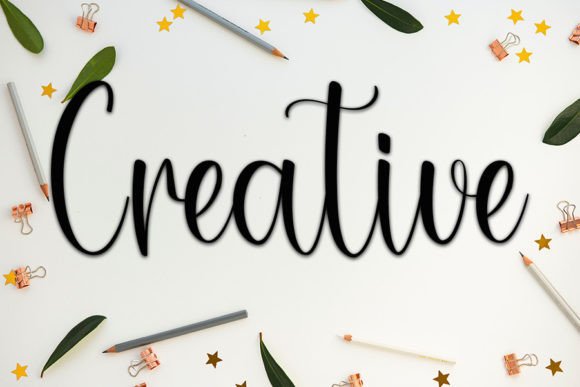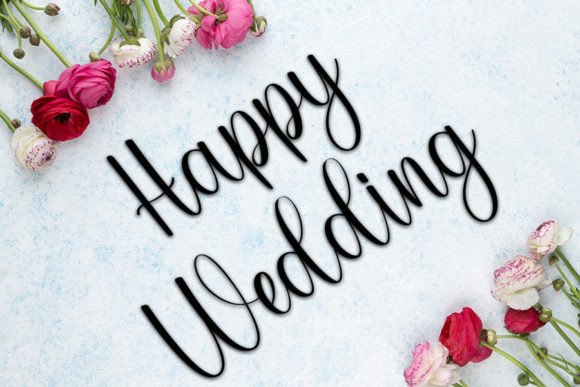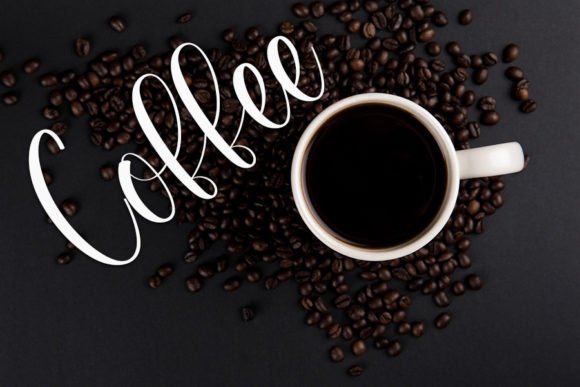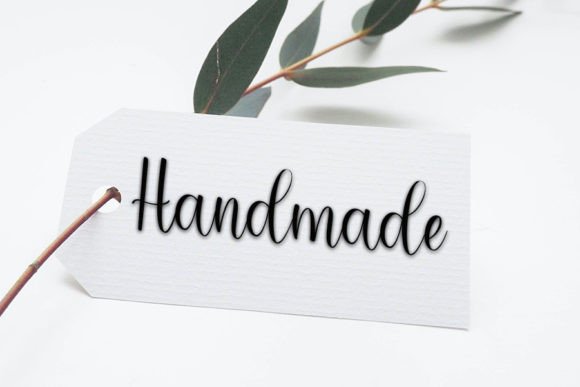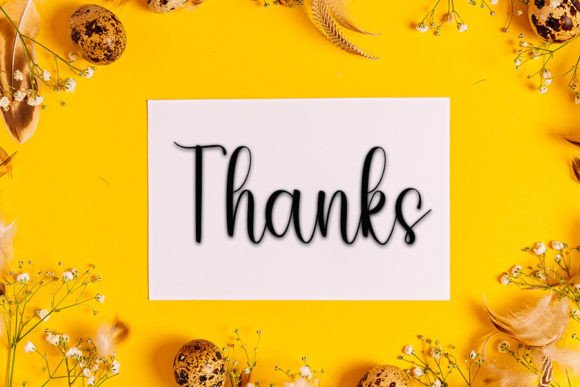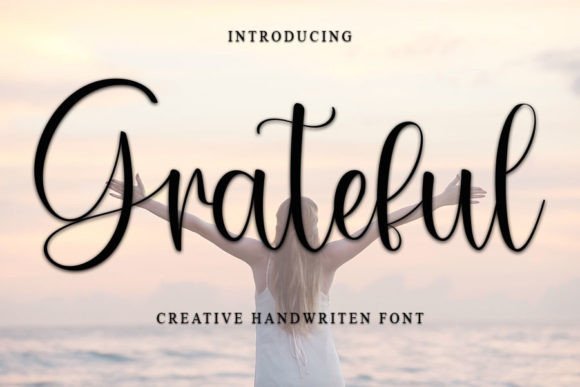
Grateful Font: Elevate Your Designs with Elegance and Timeless Style
Are you on the hunt for a font that exudes elegance, sophistication, and a touch of handmade charm? Look no further than the Grateful Font, a stunning handwritten typeface that is sure to capture your heart. With its incredibly distinct and timeless style, this beautiful font is perfect for designers and crafters seeking to add a personal touch to their projects.
The Beauty of Grateful Font
Grateful Font is a neat and beautiful handwritten font that boasts an elegant touch, making it an ideal choice for a wide range of design applications. Its unique and distinctive style sets it apart from other fonts, ensuring that your designs stand out from the crowd. Whether you’re working on a logo, branding materials, social media graphics, or craft projects, Grateful Font is sure to bring a touch of sophistication and refinement.
Key Features of Grateful Font
- Handwritten with love: Grateful Font is a carefully crafted handwritten font, imbuing it with a personal and human touch that is perfect for designs that require a more personal and emotive feel.
- Elegant and refined: With its smooth lines, flowing curves, and balanced proportions, Grateful Font exudes elegance and sophistication, making it perfect for high-end designs and luxury brands.
- Distinctive and timeless: Grateful Font’s unique style ensures that your designs will stand the test of time, remaining fresh and relevant for years to come.
Why Choose Grateful Font?
There are many fonts available, but Grateful Font offers a unique combination of style, elegance, and versatility that sets it apart. Here are just a few reasons why designers and crafters love Grateful Font:
- Add a personal touch: With Grateful Font, you can add a personal and human touch to your designs, making them more relatable and engaging.
- Stand out from the crowd: Grateful Font’s distinctive style ensures that your designs will stand out in a crowded marketplace, helping you to grab attention and build brand recognition.
- Pair it with other fonts: Grateful Font pairs beautifully with other fonts, so don’t be afraid to experiment and find the perfect combination for your design.
- Experiment with colors and textures: Grateful Font looks stunning in a variety of colors and textures, so don’t be afraid to get creative and try out different effects.
- Use it for headlines and body text: Grateful Font is suitable for both headlines and body text, making it a versatile choice for a wide range of design applications.